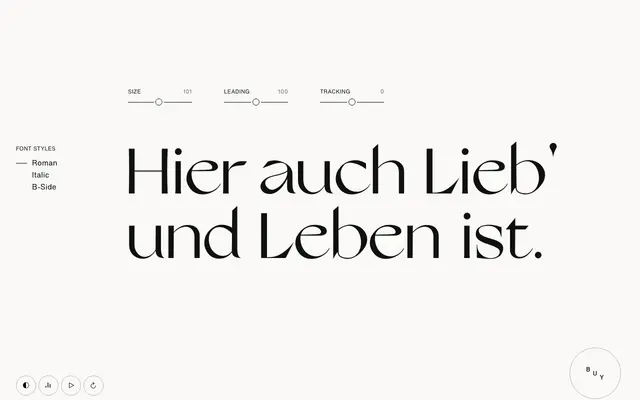
Grand Slang
A calligraphic serif by Nikolas Wrobel that translates mid-20th century American penmanship traditions into a sleek, reduced typeface merging grotesque and serif qualities.
Drawing on the calligraphic hands of Oscar Ogg and William A. Dwiggins, Grand Slang retranslates rather than recreates its historical sources, arriving at over 310 non-modular characters that blend the warmth of calligraphy with the economy of a grotesque. Three styles — Roman, Italic and the alternate B-Side — give designers flexibility across editorial, branding and packaging contexts. Its uptake by Nike, Mandarin Oriental and Gestalten confirms its standing as a versatile yet distinctly voiced display face.
Grand Slang merges grotesque and serif qualities drawn from mid-20th century American calligraphy traditions, placing it in a calligraphic serif subcategory with its non-modular, hand-influenced letterforms.